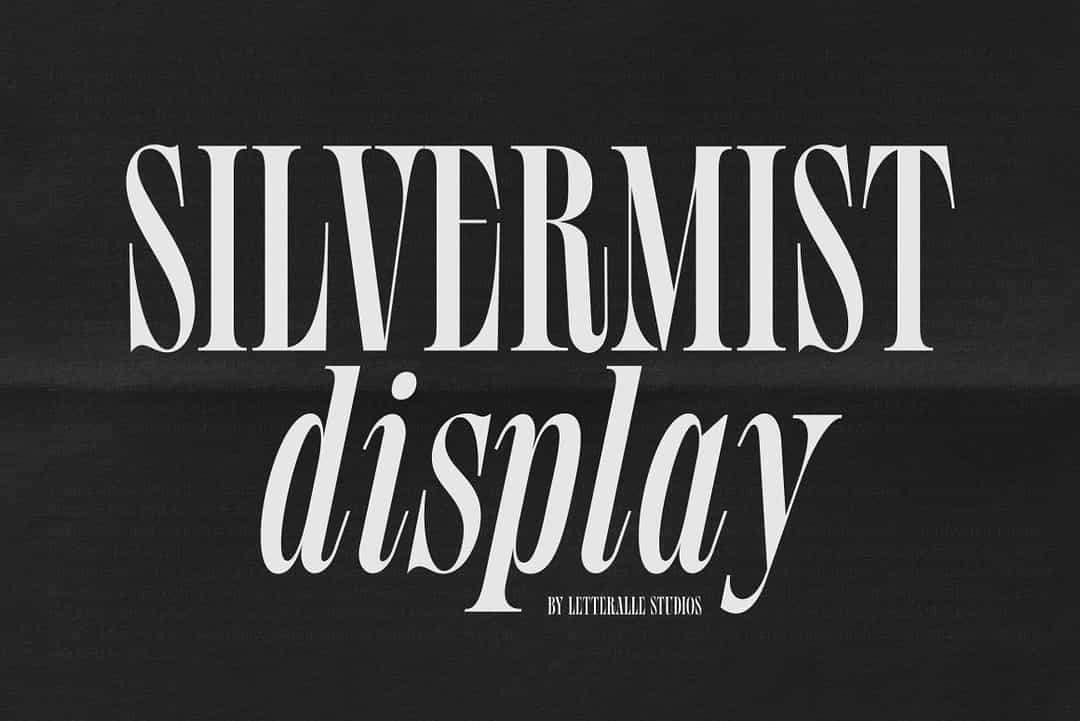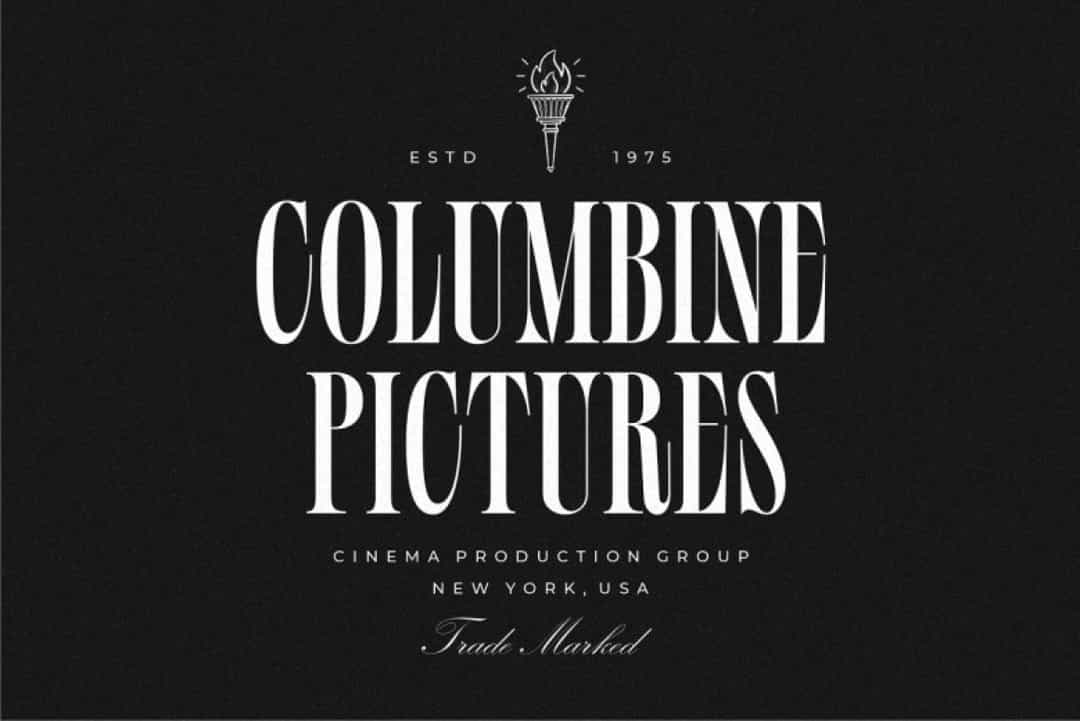
Silvermist font can help convey messages with confidence and masculinity. Its high-pitched letters make Silvermist stand out more, making it perfect for logo design, editorial projects and Music Album or Clothing Branding packaging for products magazines, headers for magazines or simply adding chic text overlays on every background picture.